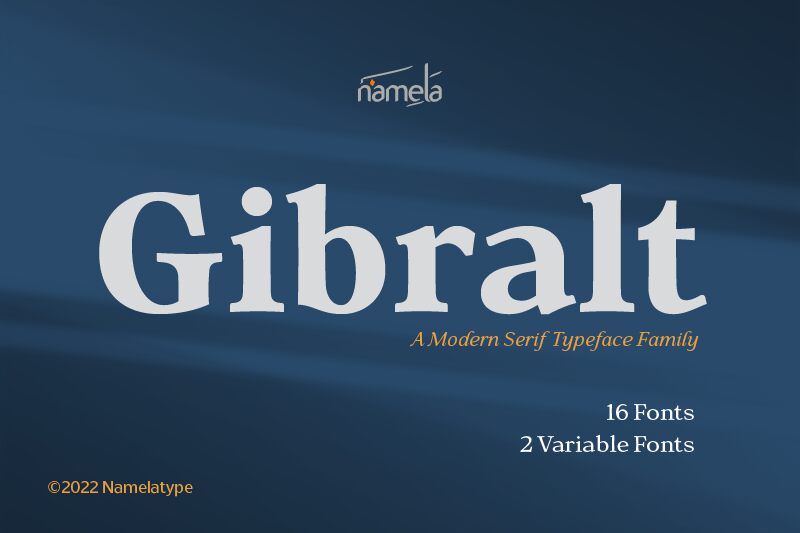
Gibralt font by Namela Type combines elegance, expressiveness, and sophistication in an artistic combination inspired by classic serif fonts. The traditional influences are clear thanks to the overall design which brings a fresh take on classic letterforms. Gibralt adds style to typographic designs with visual impressions that do not disappoint.
A free serif font for luxury branding, labels, magazine covers, quotes, posters, and printing projects. Advertisements can enjoy its letters with short or long texts including those found on websites or blogs. It fits packaging designs of perfumes or boutique items and is perfect for cards: greeting cards, business cards, etc.